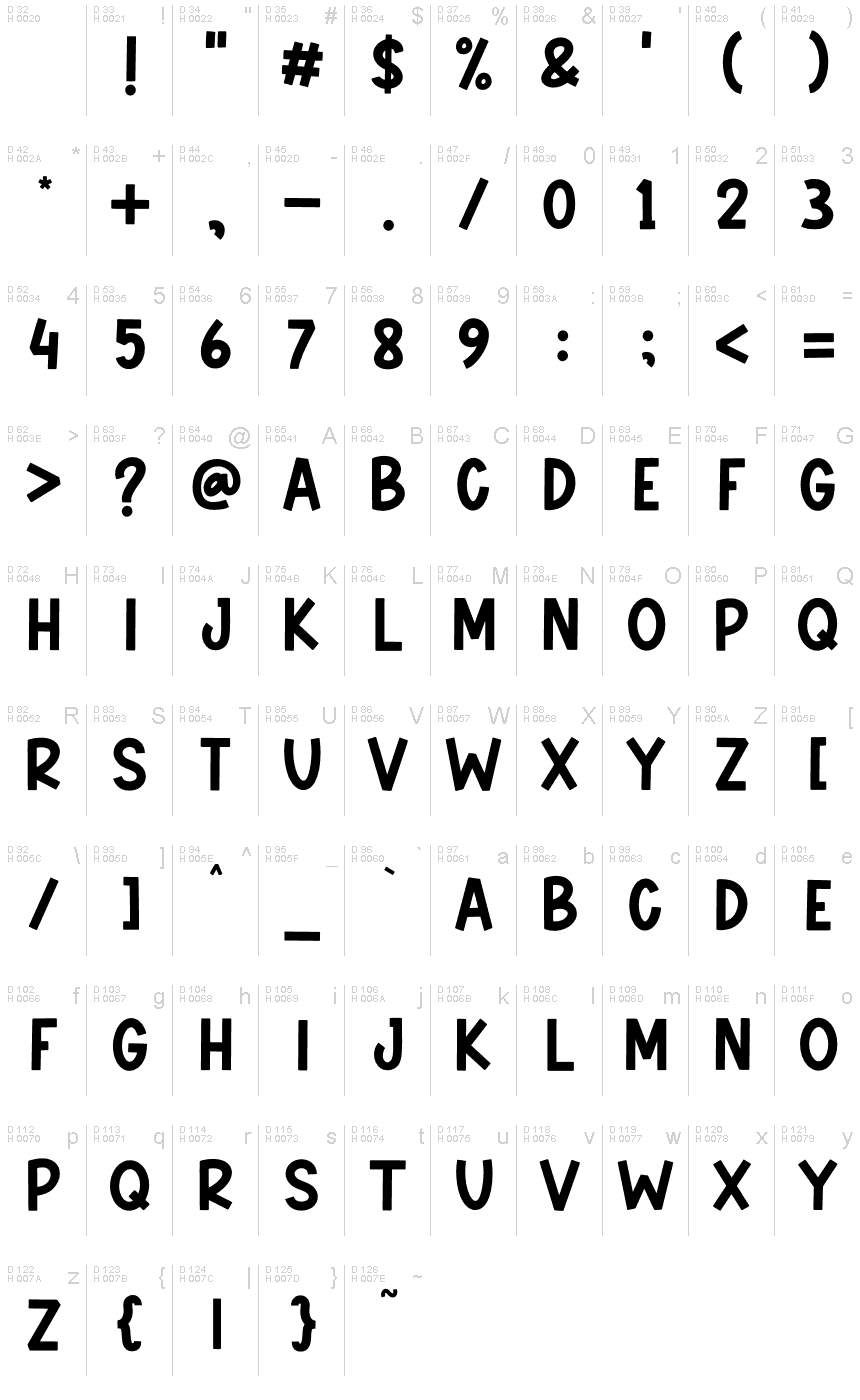
Friendszone
Friendszone, a playful and dynamic typeface crafted by Mozatype, brings a touch of whimsy to the world of display fonts. Its cartoon style radiates an affable charm that is both eye-catching and inviting. The semi-condensed width of Friendszone strikes a perfect balance between space-saving efficiency and legible distinction, making it an excellent choice for headlines, logos, and any project where personality is paramount.
With its friendly curves and lively presence, Friendszone exudes an aesthetic appeal that can infuse projects with a sense of fun without sacrificing sophistication. Its casual yet polished appearance suggests versatility - from children's book titles to branding for creative startups - this font is poised to elevate designs with its unique blend of style and functionality.